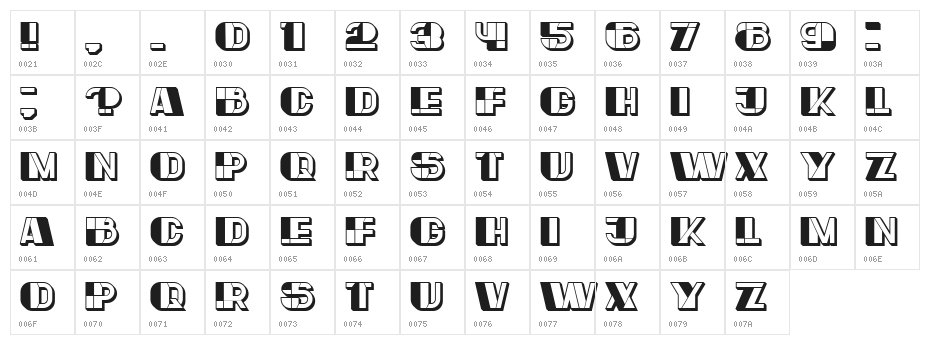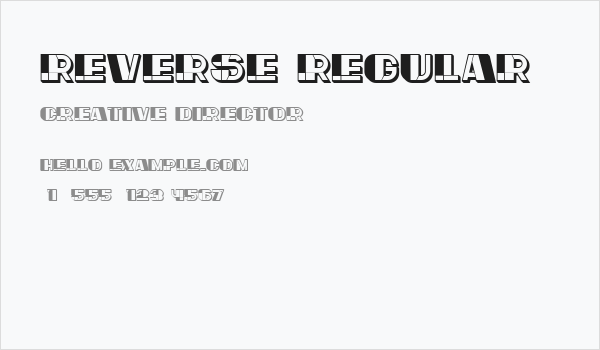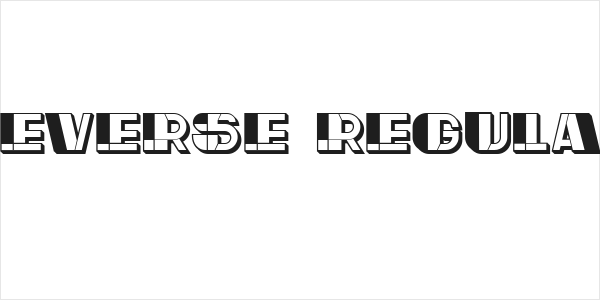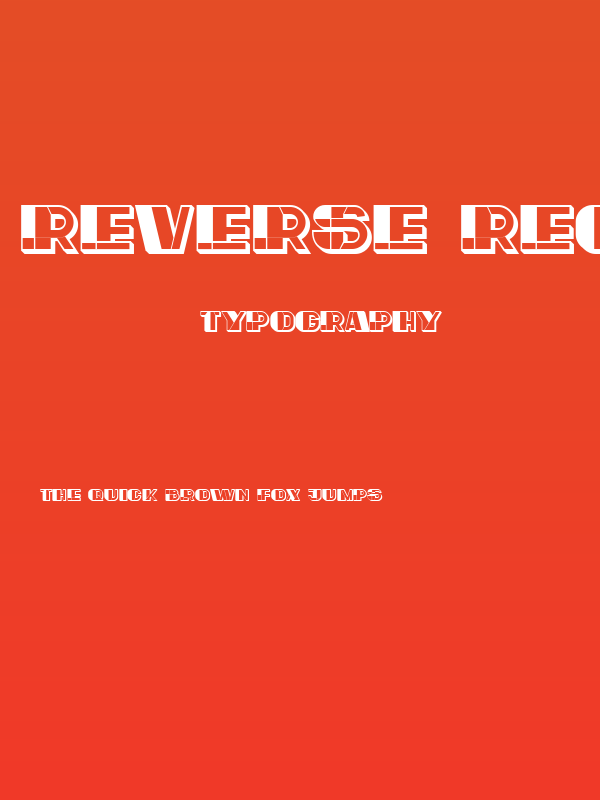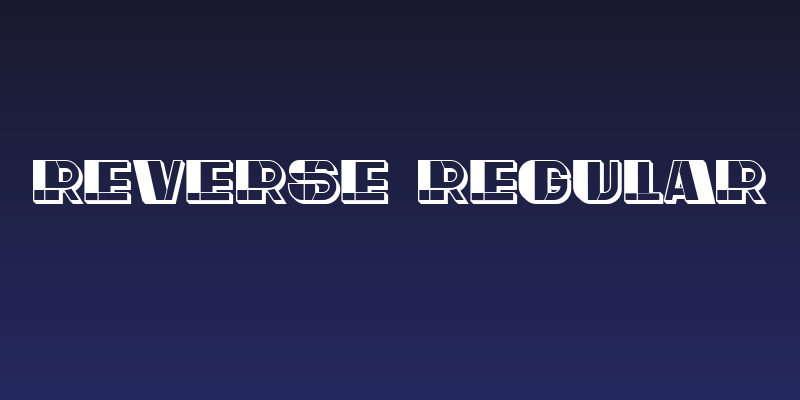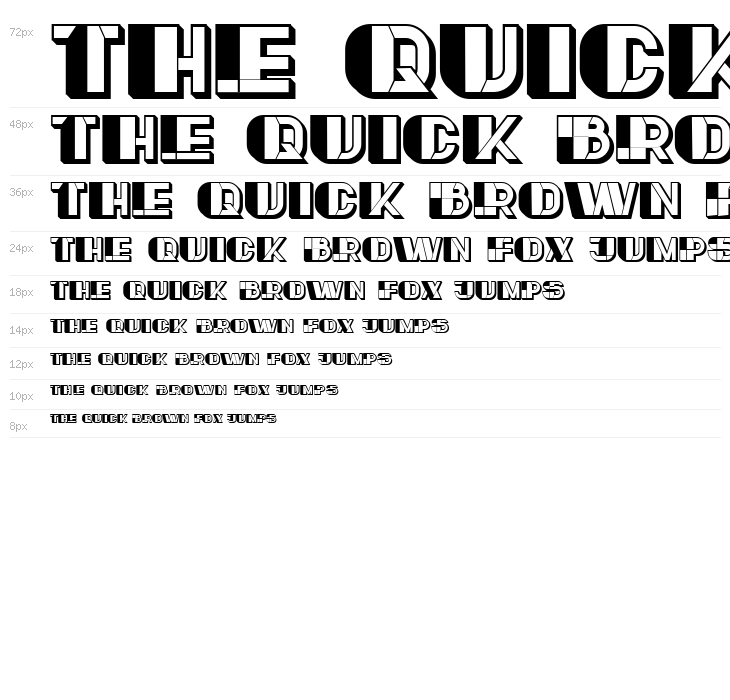
Reverse Regular Font
This font features a bold and striking design with a unique geometric style. Each character is crafted with a combination of solid and outlined segments, creating a dynamic and visually engaging effect. The uppercase letters are particularly prominent, with a strong presence that commands attention. The numbers and special characters maintain this bold aesthetic, ensuring consistency across all elements. The font's design is modern and innovative, making it suitable for projects that require a contemporary and eye-catching typeface.
| Proposed Projects | Ideal for branding, posters, headlines, and any design that requires a bold statement. |